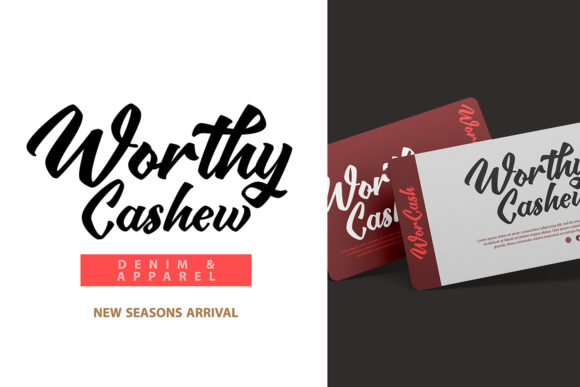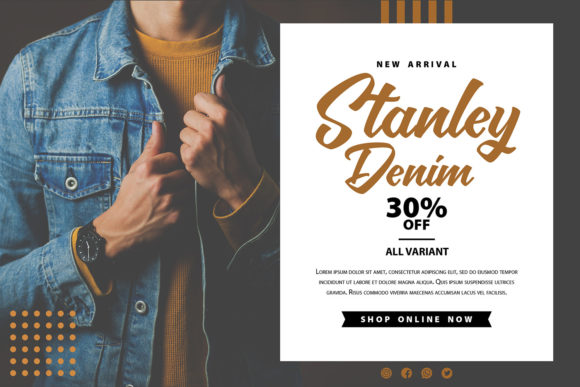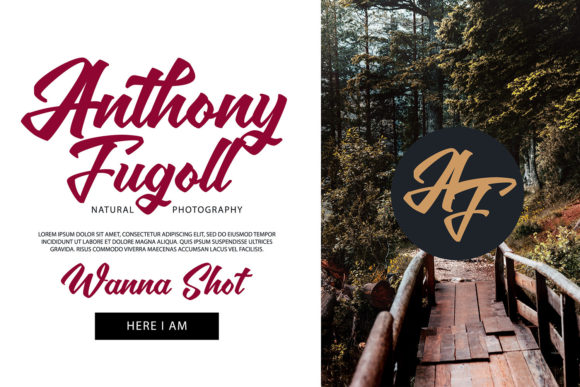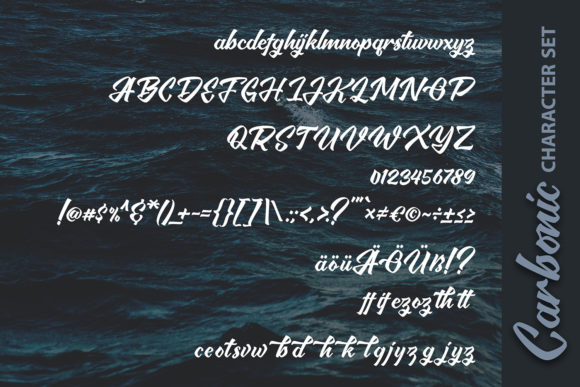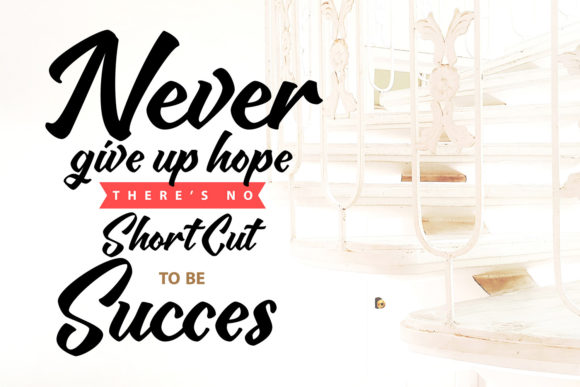
Introducing Carbonic Font: The Epitome of Elegance and Sophistication
In the realm of typography, few fonts manage to strike a balance between classic elegance and modern flair. Carbonic Font is one such gem that has captured the hearts of designers and crafters alike with its exquisite handwritten appeal. This beautifully crafted font is not just a typeface; it’s an experience that brings a touch of sophistication to any project it’s a part of.
The Design Philosophy of Carbonic Font
Carbonic Font is masterfully designed to evoke a sense of luxury and refinement. Its classy calligraphic influences are evident in its fluid strokes and elegant ligatures, reminiscent of traditional calligraphy. However, what sets Carbonic apart is its ability to feel contemporary and fresh, making it incredibly versatile for a wide range of design applications.
Whether you’re working on a branding project, a wedding invitation, or a packaging design, Carbonic Font brings a level of sophistication that is hard to match. Its unique blend of traditional and modern elements ensures that your designs stand out in a crowded marketplace.
PUA Encoding: Unlocking Creative Potential
One of the standout features of Carbonic Font is its PUA (Private Use Area) encoding. This means that the font includes a comprehensive range of glyphs and swashes that can be accessed with ease. For designers and crafters, this opens up a world of creative possibilities.
With PUA encoding, you can:
- Easily access and use a wide range of glyphs and swashes to add personality and flair to your designs.
- Create custom word art and phrases that showcase your creativity.
- Experiment with different combinations of glyphs to develop a unique visual style.
This level of creative freedom is invaluable for professionals who need to deliver high-quality, bespoke designs that meet the specific needs of their clients.
Applications of Carbonic Font
The versatility of Carbonic Font makes it suitable for a myriad of design projects. Here are some of the areas where Carbonic truly shines:
- Branding and Logos: Use Carbonic to create elegant and memorable brand identities that convey luxury and sophistication.
- Wedding and Event Stationery: Add a touch of romance and elegance to wedding invitations, save-the-date cards, and other event materials.
- Packaging Design: Elevate product packaging with a font that communicates quality and refinement.
- Digital Media: Incorporate Carbonic into digital content such as social media graphics, blog headers, and website designs to give your online presence a classy makeover.
Why Choose Carbonic Font?
In a sea of fonts, Carbonic stands out for several reasons:
- Unique Aesthetic: Its blend of calligraphic elegance and modern simplicity is unmatched.
- High Versatility: Suitable for a wide range of projects, from digital to print.
- PUA Encoding: Offers extensive creative possibilities with easy access to glyphs and swashes.
- User-Friendly: Designed to be intuitive, making it easy for designers of all levels to use.
Carbonic Font is more than just a typeface; it’s a design statement. With its exquisite handwritten appeal, classy calligraphic influences, and contemporary freshness, it’s poised to become a favorite among designers and crafters. The added benefit of PUA encoding makes it an incredibly versatile tool for anyone looking to add a touch of elegance and sophistication to their designs.
Whether you’re a seasoned professional or just starting out, Carbonic Font is an invaluable addition to your design arsenal. It’s an invitation to explore new creative horizons and to bring a level of refinement and luxury to your projects that’s unparalleled in the world of typography.